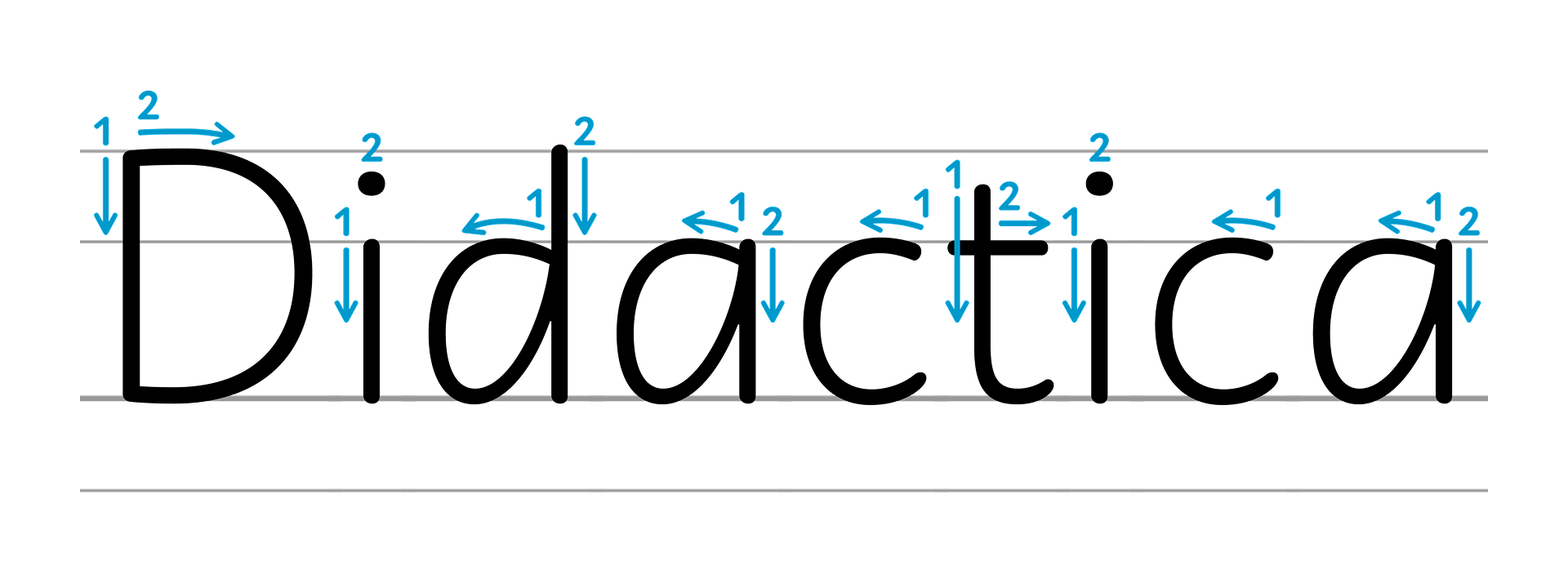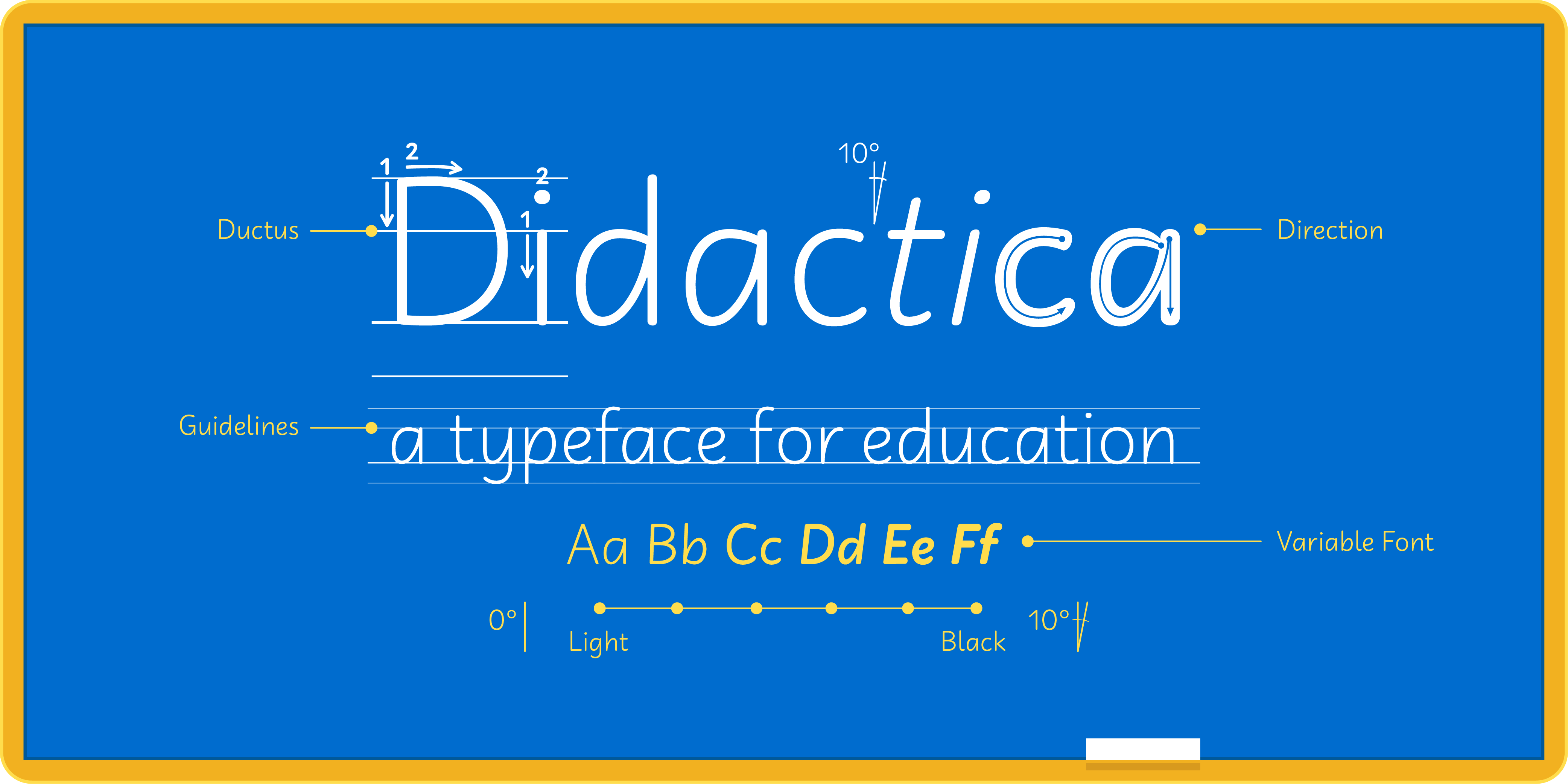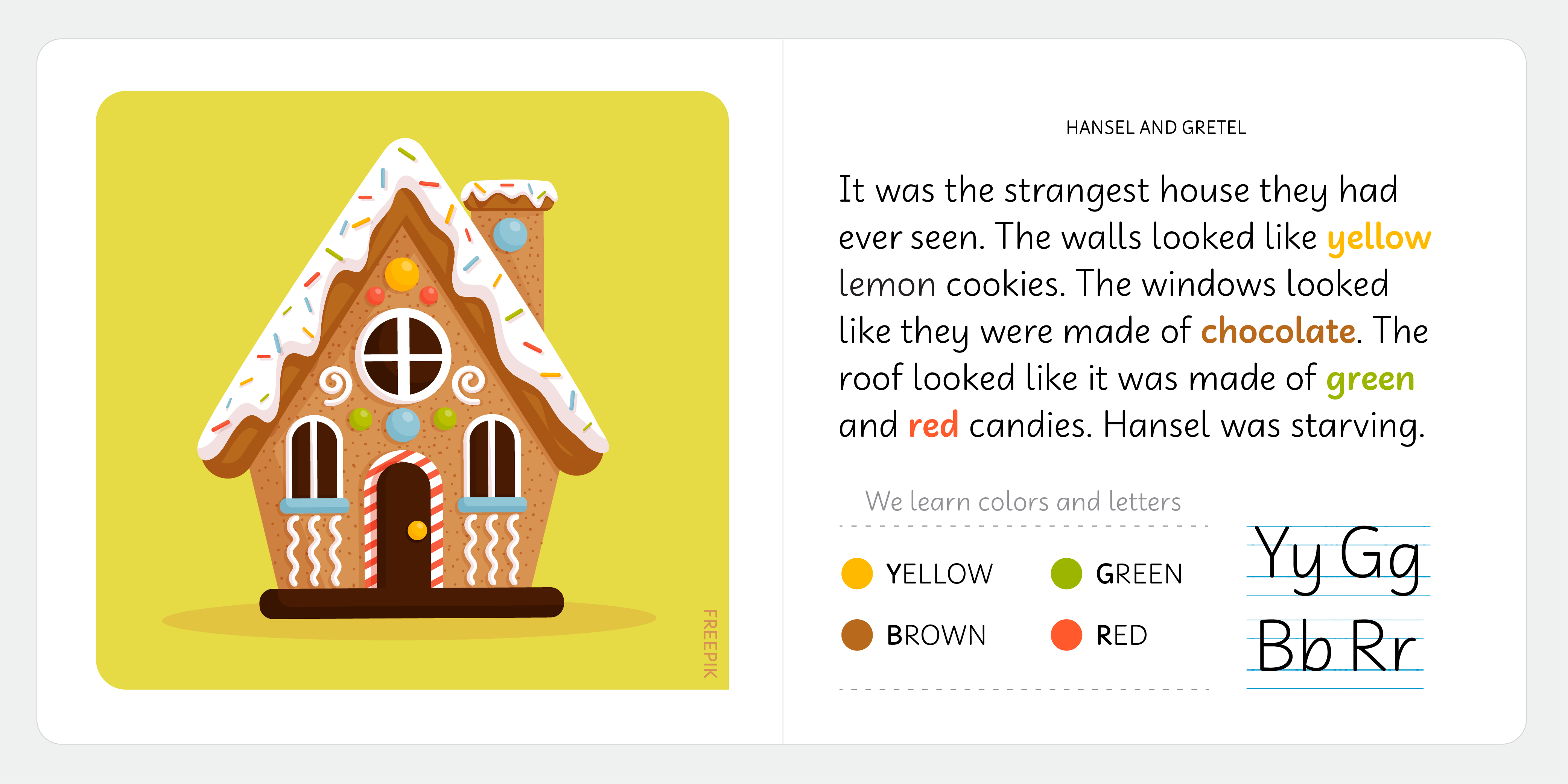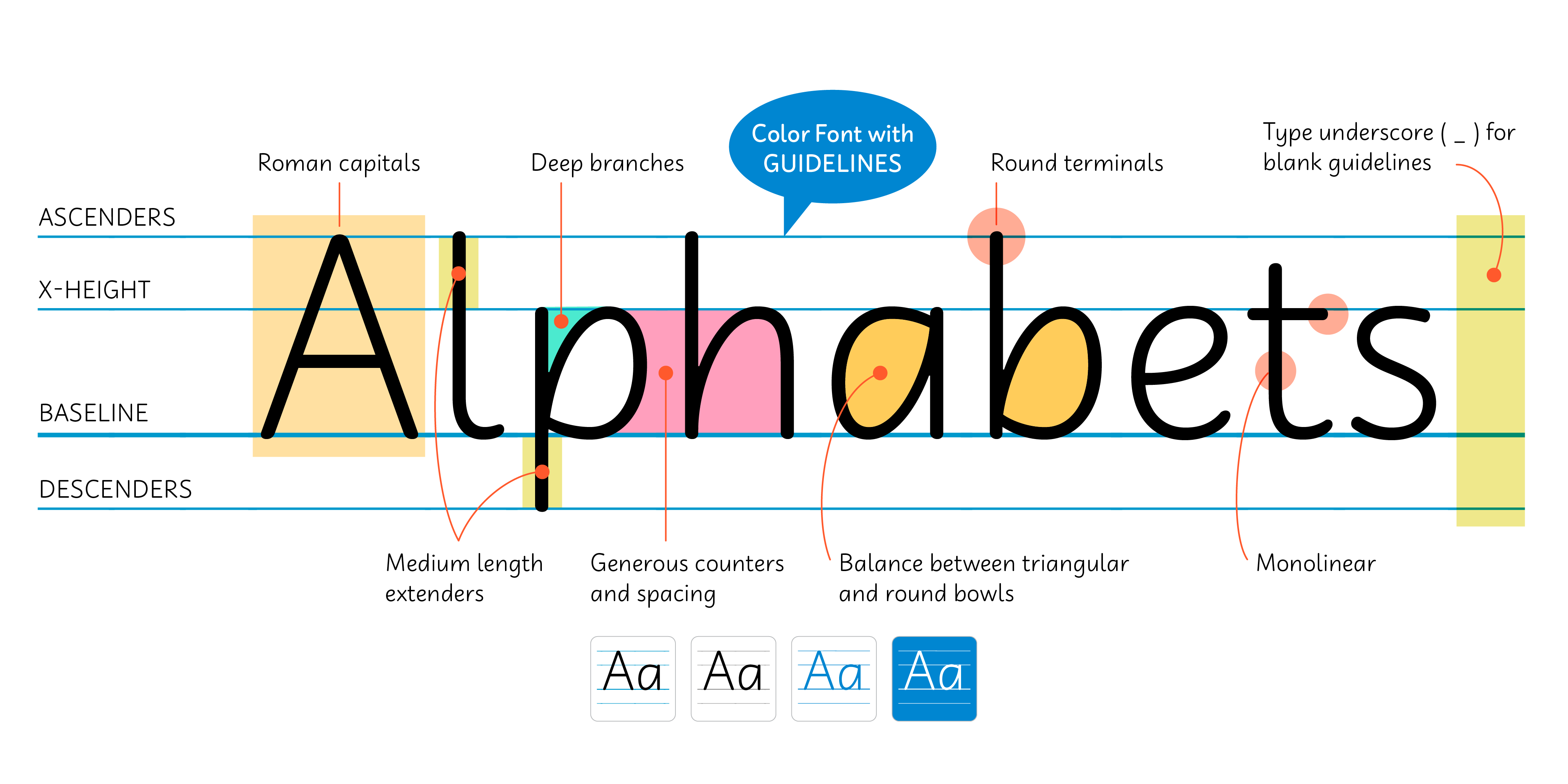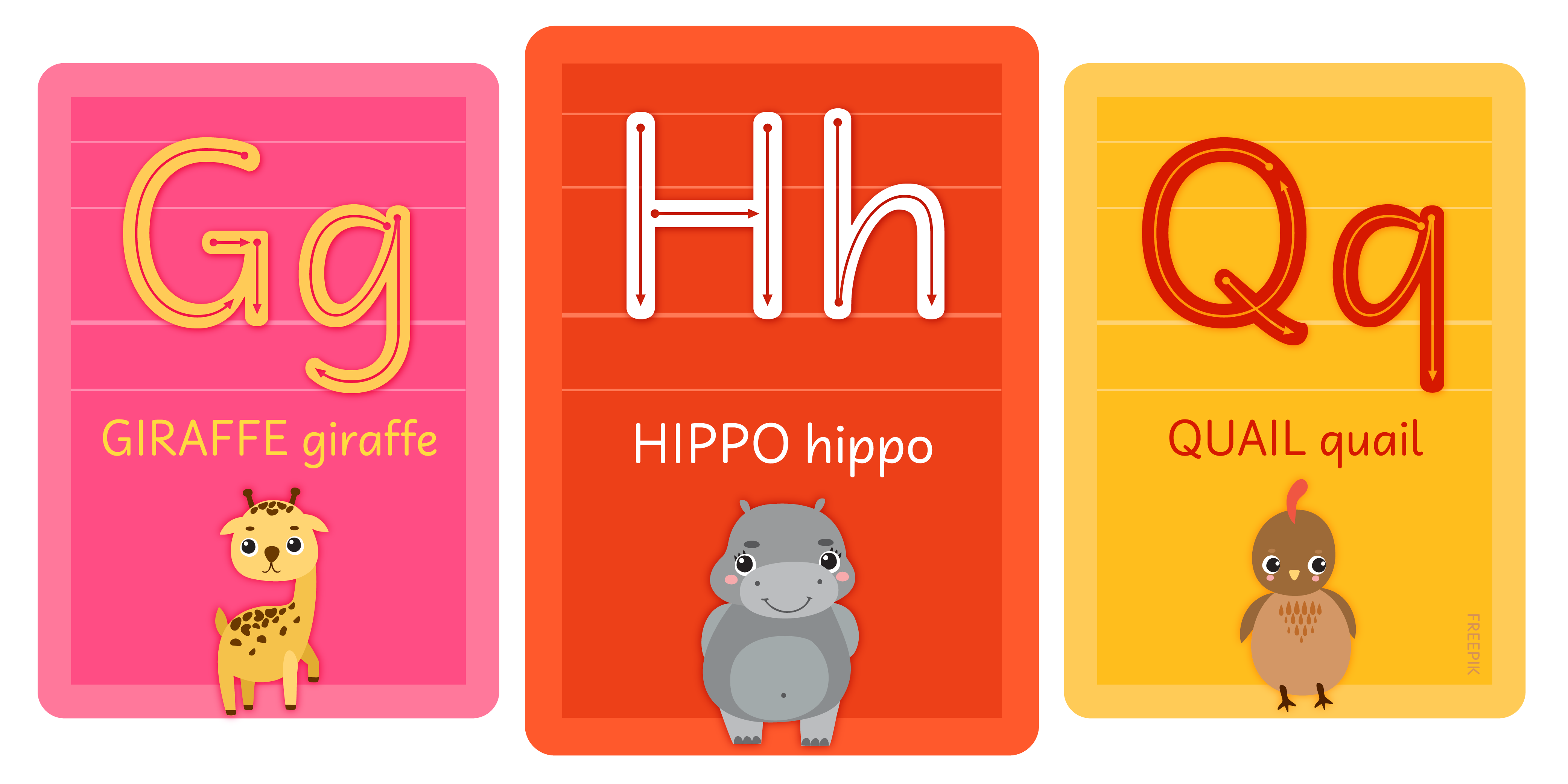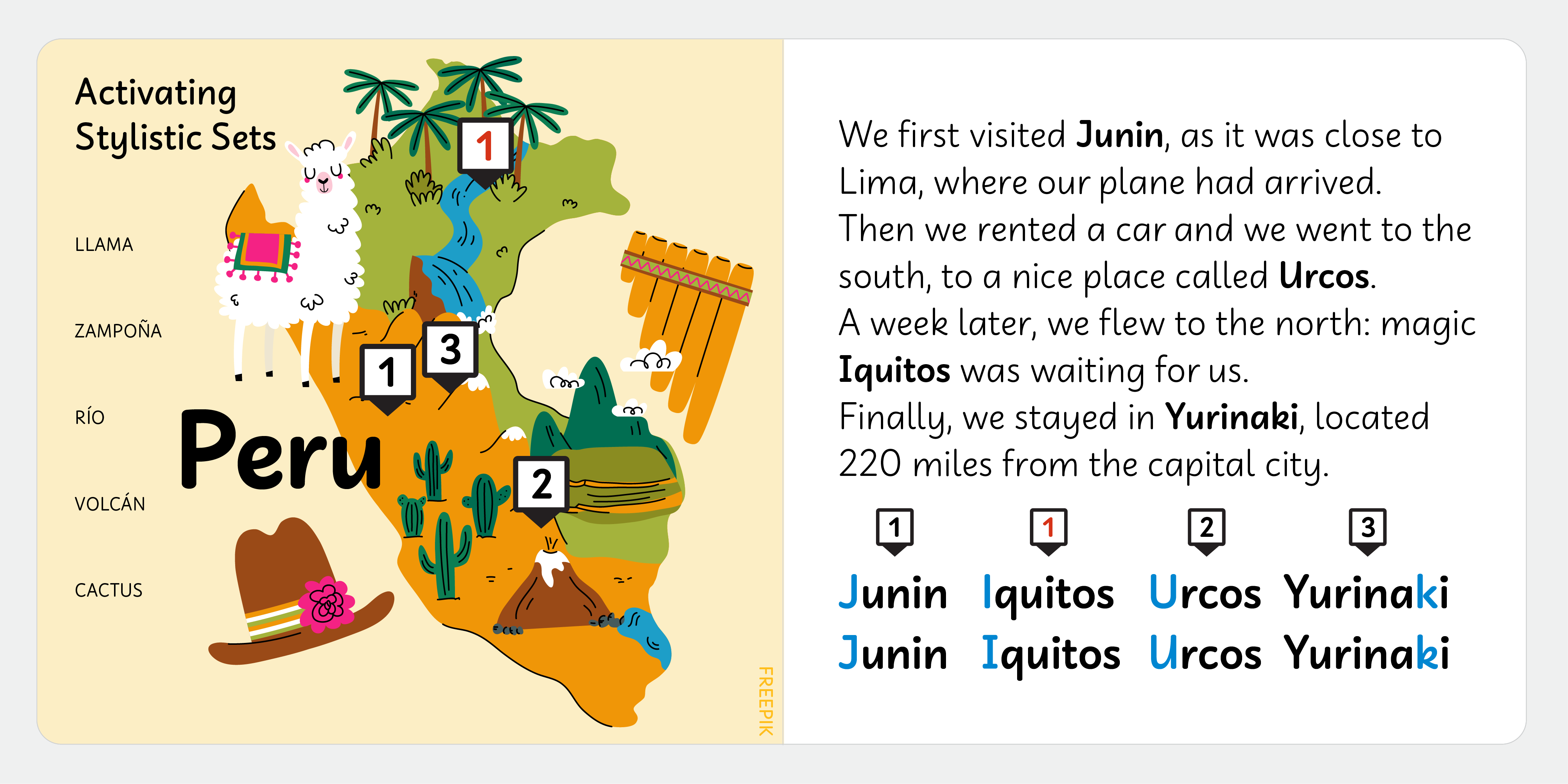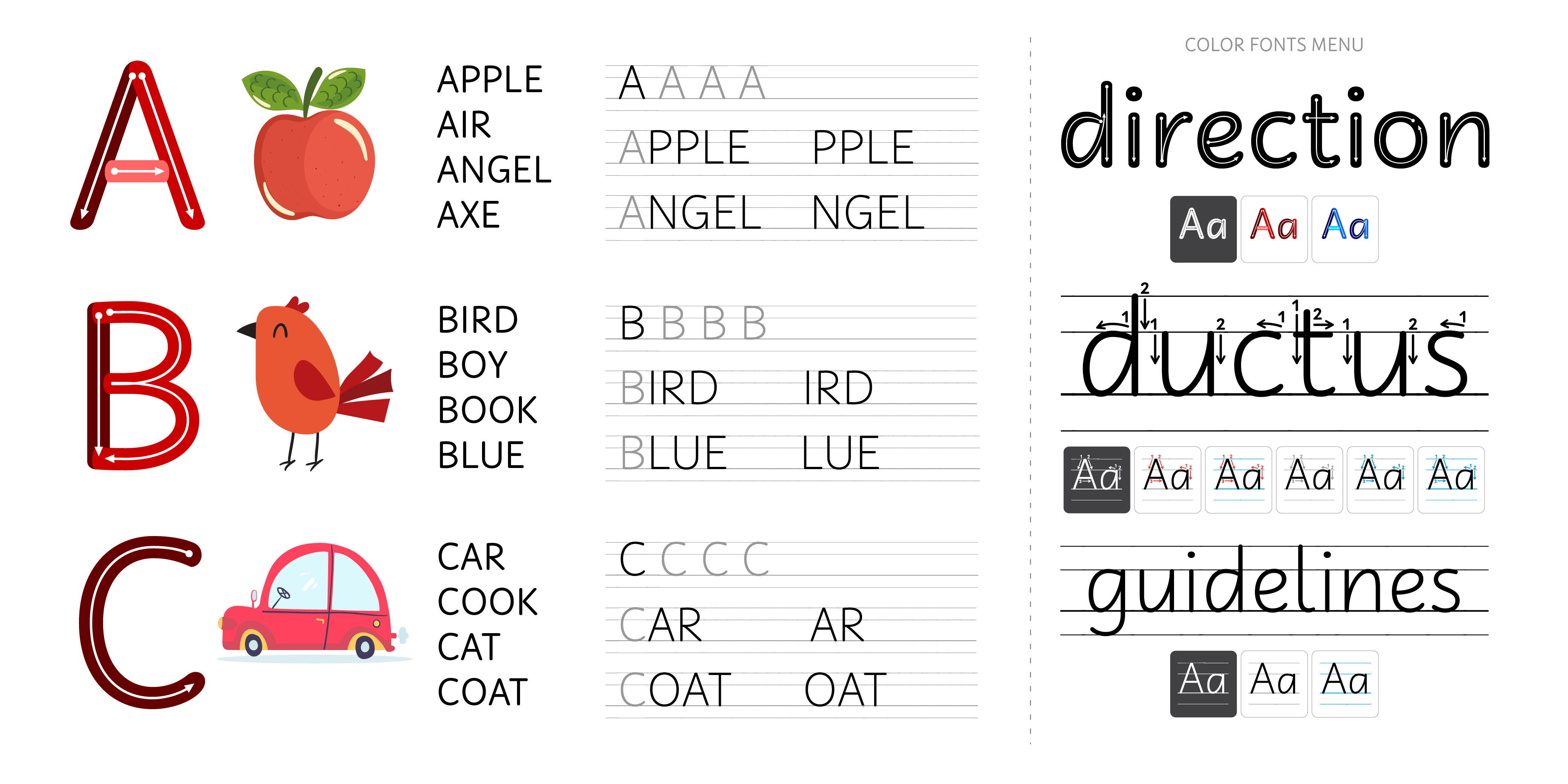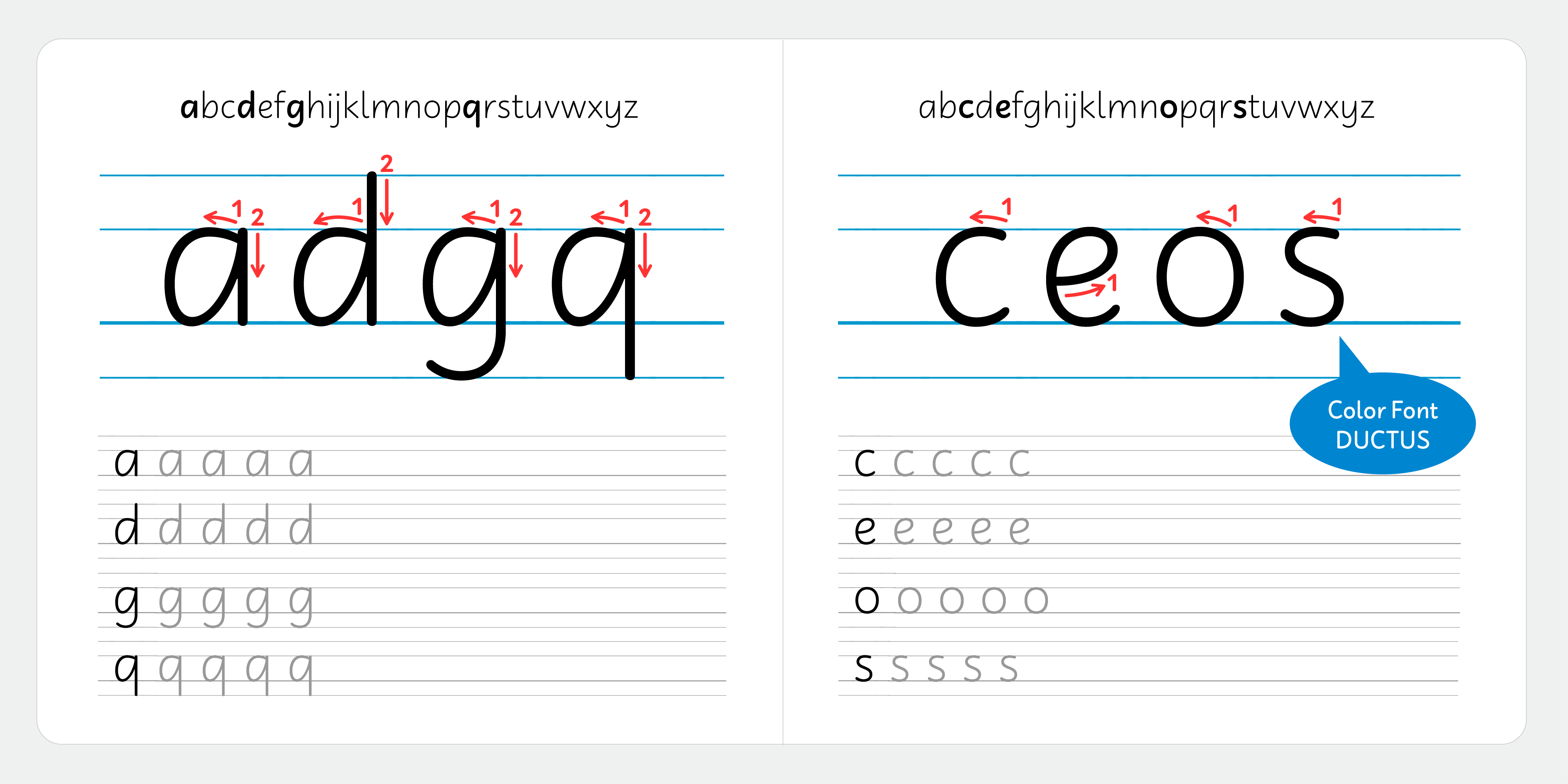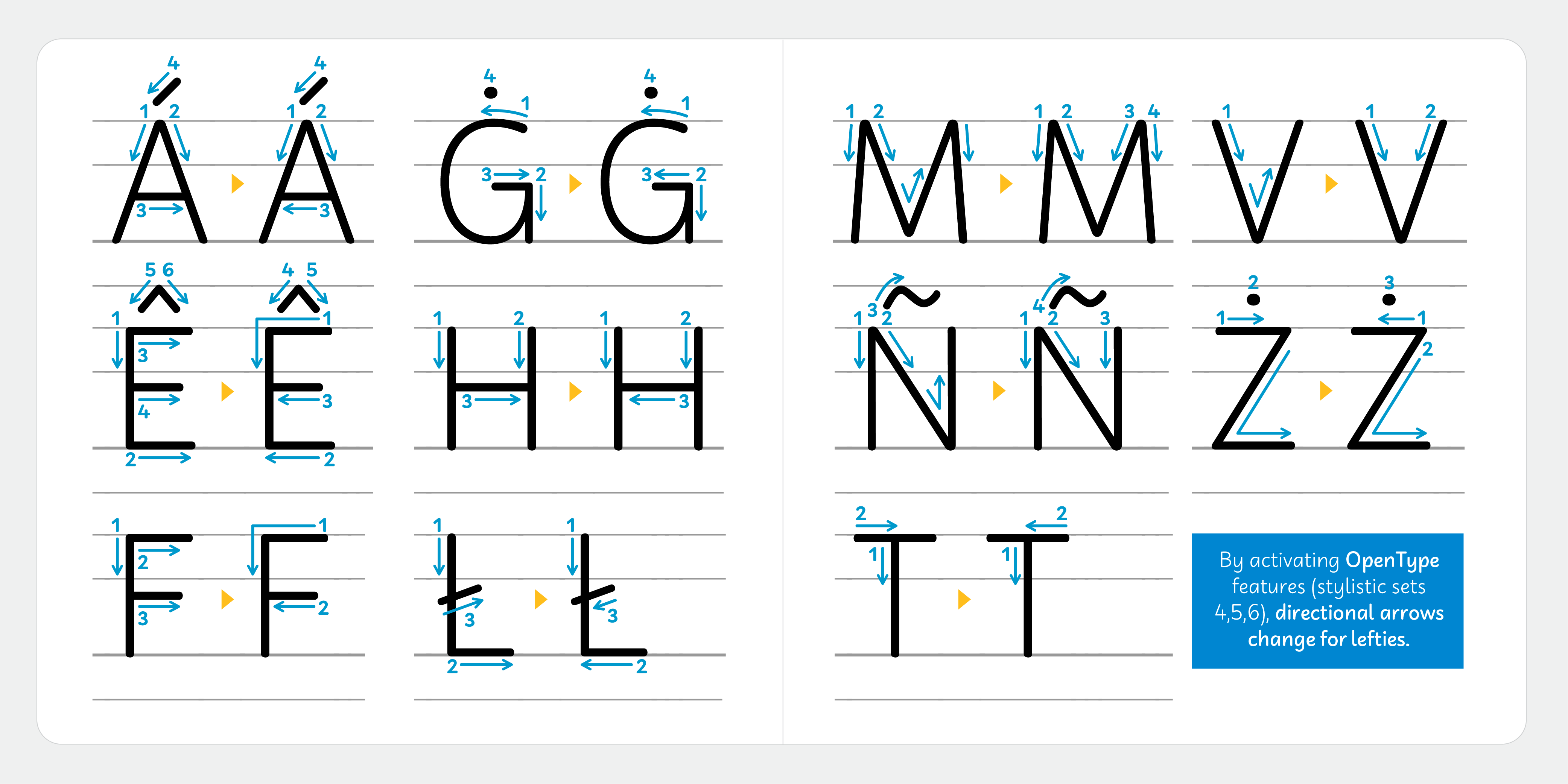
Didactica is a handwriting font family inspired by the lessons of Tom Gourdie. The idea was to create something familiar to kids and easy to read. It also features various styles for educational purposes, such as Direction, Ductus, and Guidelines — easily used as a handwriting instruction tool for children in their early years of schooling. Didactica is a friendly script perfect for books, toys, magazines, packaging, and educational materials.
Didactica by Typesenses is a friendly handwriting family designed for education and children’s learning materials.